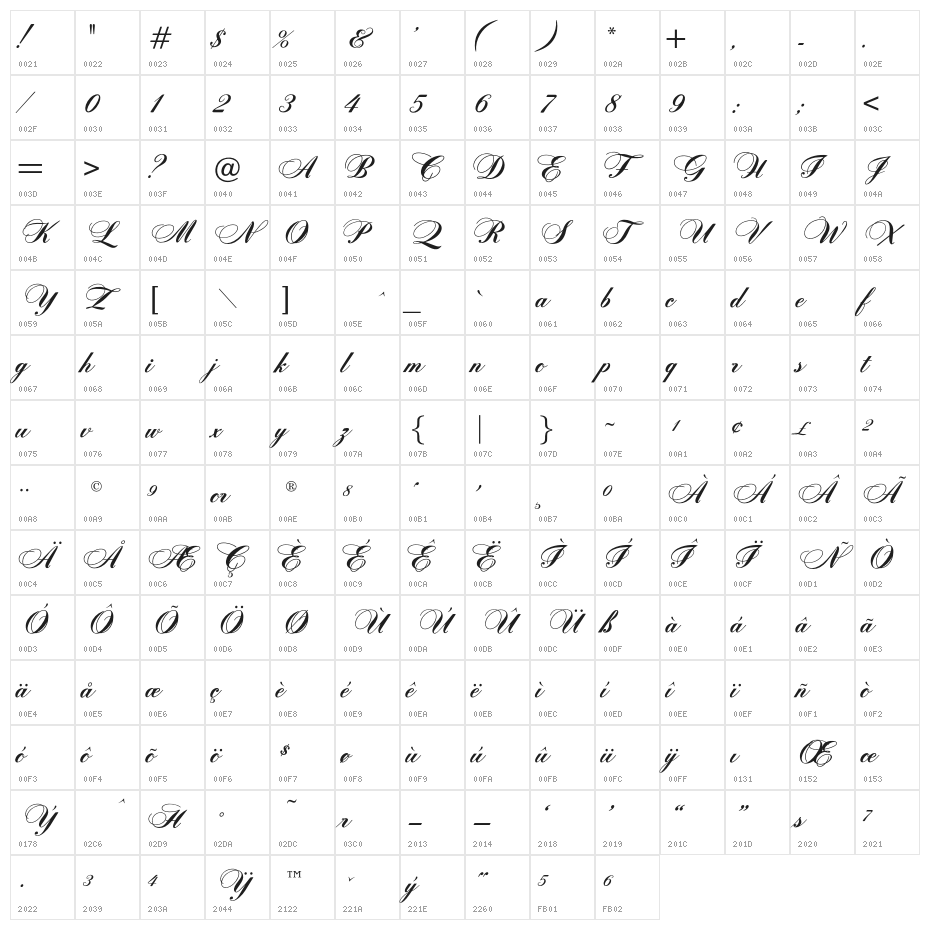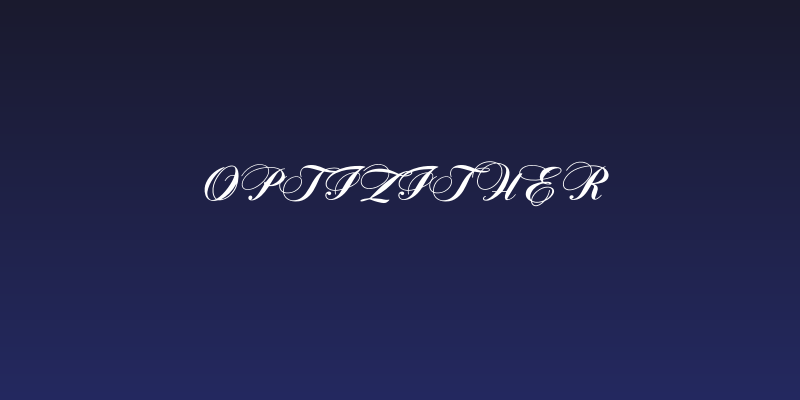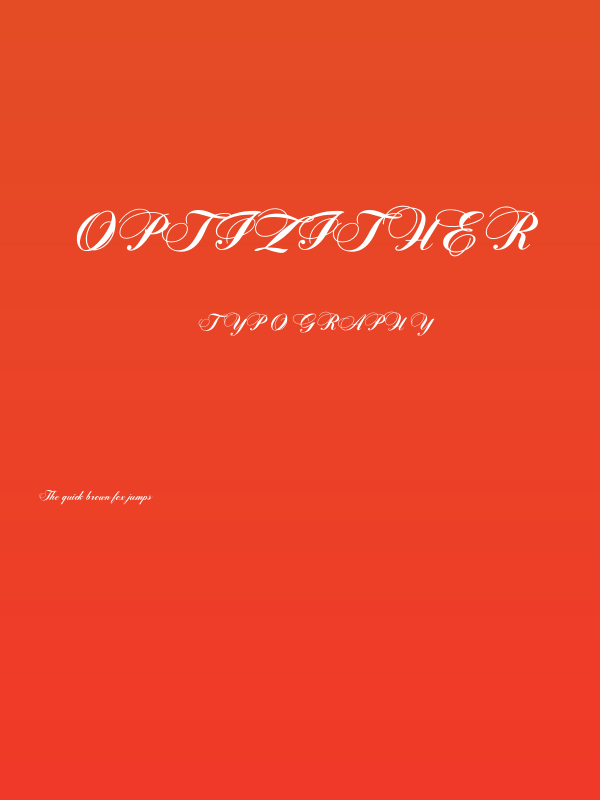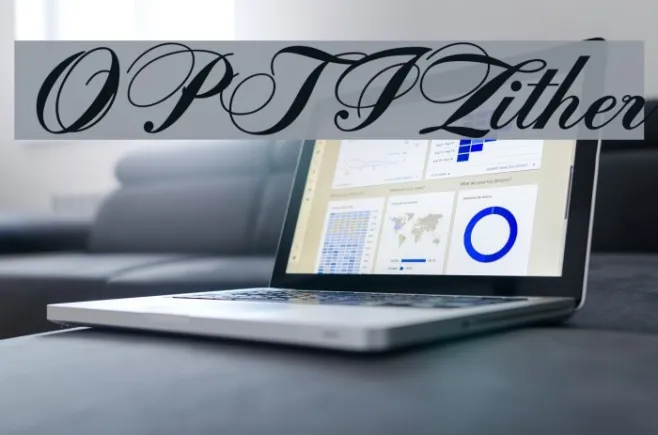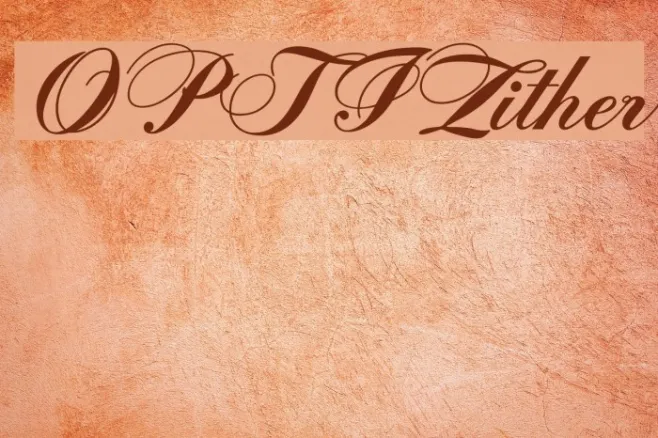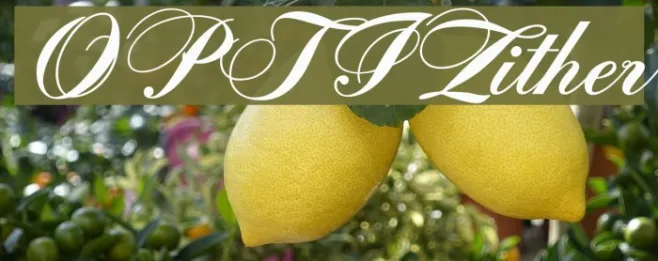
OPTIZither Font
OPTIZither Description
This elegant script font features a flowing, cursive style with intricate loops and flourishes. The uppercase letters are particularly ornate, with sweeping curves that give a sense of movement and grace. The lowercase letters maintain a consistent slant, adding to the overall fluidity of the design. The numerals are stylish yet readable, complementing the alphabet with their sophisticated curves. Special characters are designed with the same attention to detail, ensuring a cohesive look across all glyphs. This font exudes a sense of luxury and refinement, making it ideal for formal and decorative applications.
| Proposed Projects | Ideal for wedding invitations, luxury branding, elegant stationery, and decorative headlines. |